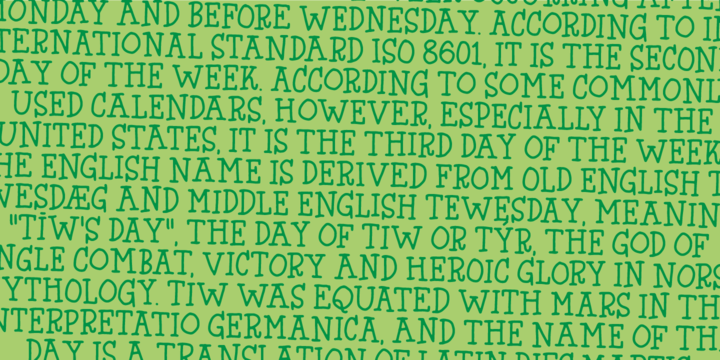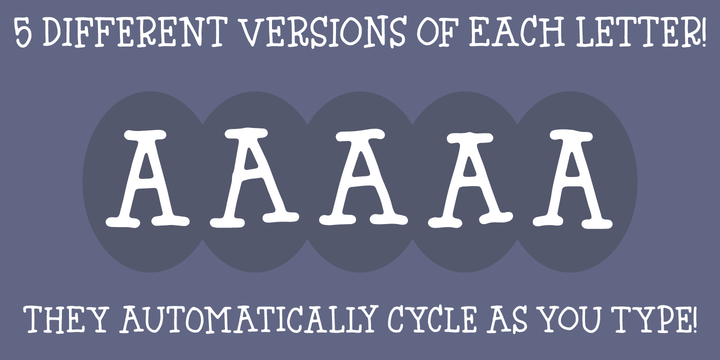
Hyggebukser are very comfortable trousers in danish. Trousers you'd wear after a long days work, when you just need to relax. The same goes for this font - it has something very comfortable to it!